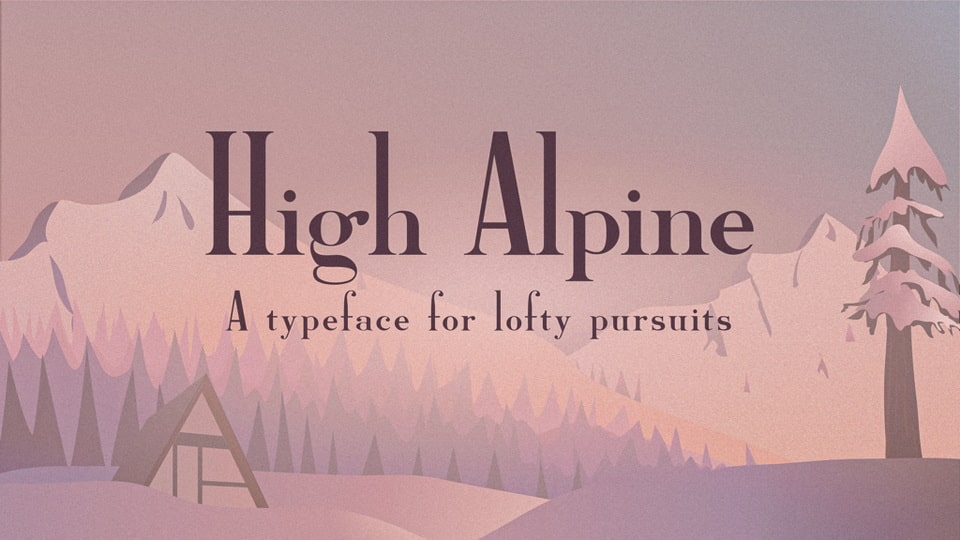
Download High Alpine typeface, a semi-bold serif display typeface. High Alpine has an unapologetically high ascender with no accompanying adjustment to the x-height. The descender was kept rather short as well, allowing uppercase to maintain its towering command.
Designer: Sarah Bell